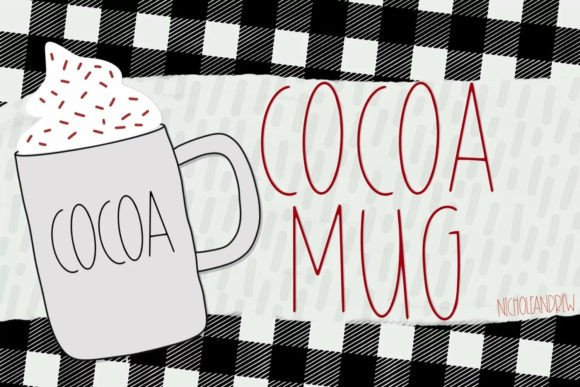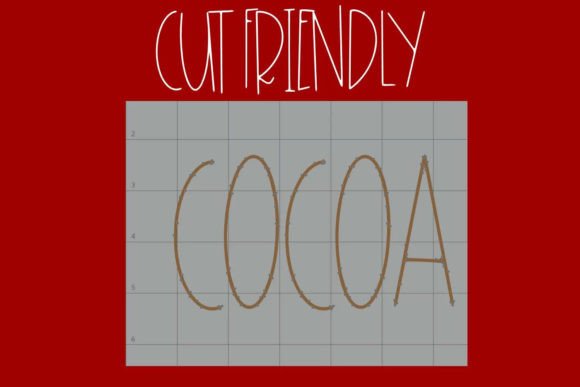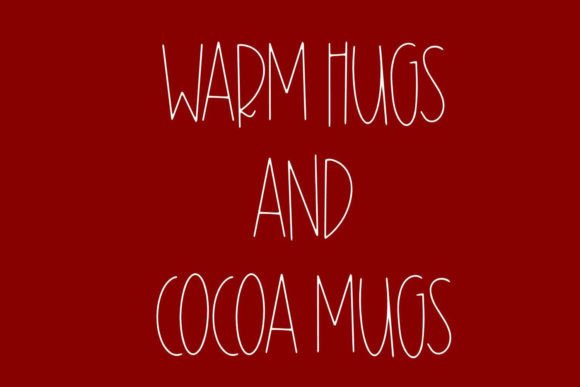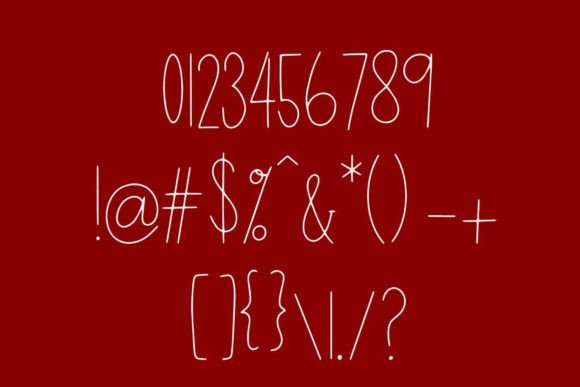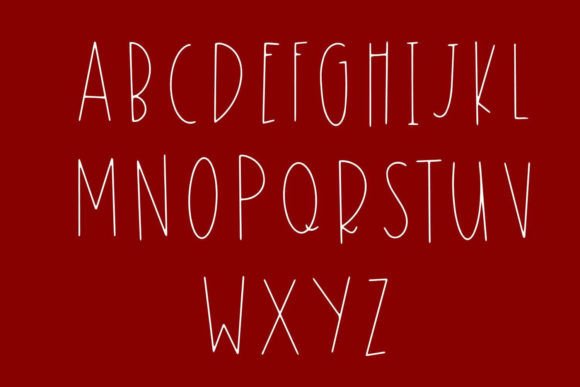
Cocoa Mug Font
About Cocoa Mug Font
Cocoa Mug is a thin farmhouse handwritten font designed with optimized nodes for cutting, making it an excellent choice for use with cutting machines. This font’s versatility ensures that it will be an incredible asset to your fonts’ library, capable of elevating a wide range of creations, no matter the topic or theme.
The thin and handwritten style of Cocoa Mug brings a touch of simplicity and elegance to your text. Whether you’re working on farmhouse-inspired designs or any other creative project, this font is crafted to enhance the overall aesthetic.
The optimized nodes for cutting make Cocoa Mug particularly well-suited for projects involving cutting machines, ensuring precision and clarity in the final result. Whether you’re creating decals, crafts, or any other design that involves cutting, Cocoa Mug is a reliable choice.
Imagine using Cocoa Mug for farmhouse-themed creations, adding a rustic and handcrafted touch to your designs. Picture it on labels, signs, or any project where the thin and farmhouse style can enhance the visual appeal. Whether used in digital or physical creations, Cocoa Mug is designed to be a valuable addition to your creative toolkit.
In summary, Cocoa Mug is more than just a font; it’s a practical and versatile tool crafted for use with cutting machines, ready to elevate your creations with a thin farmhouse handwritten style.